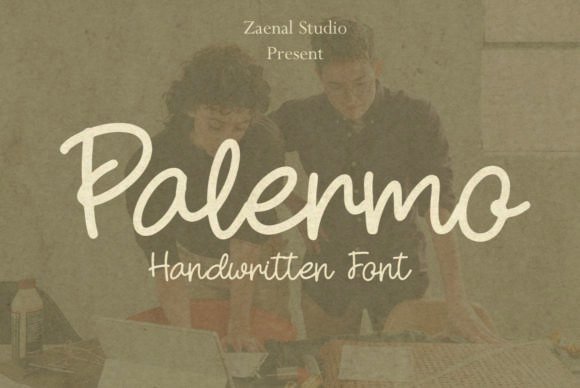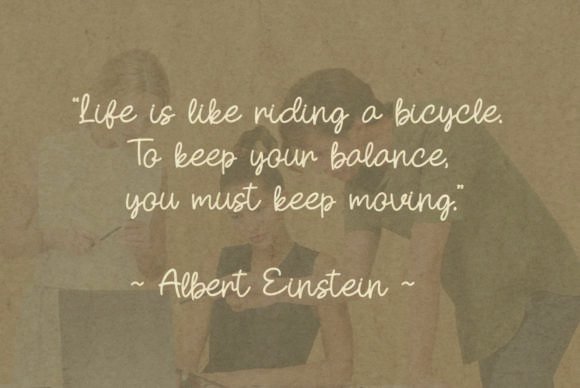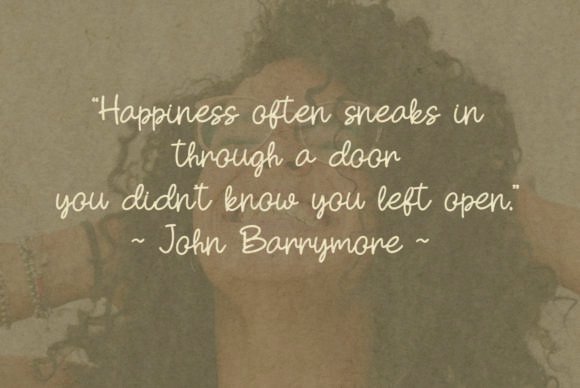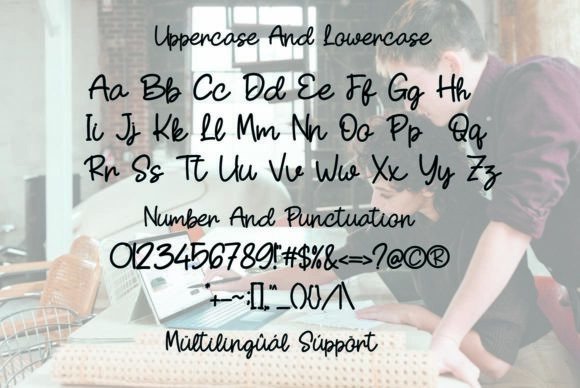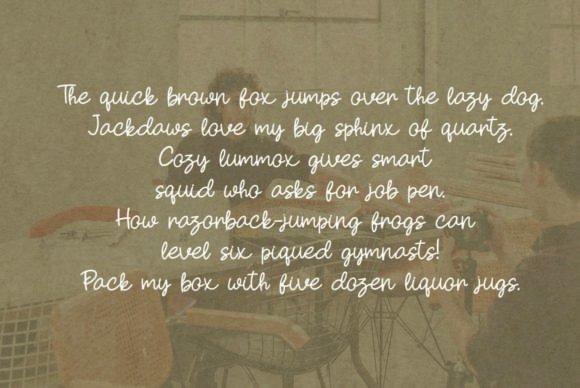
About Palermo
Palermo is a unique and elegant script font suitable for brand and logo designs. Grab it now and make those beautiful invitations, business cards, vintage logos, branding, and logo designs. You will get classy, elegant, and, of course, unique logos with this font.